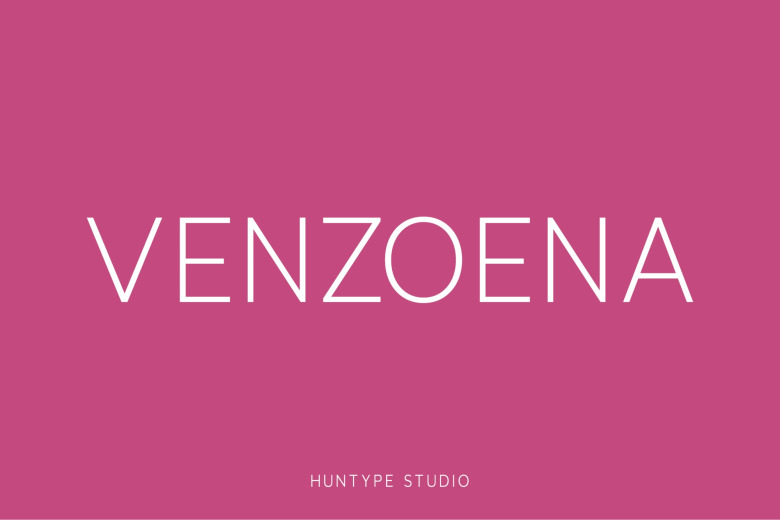
Venzoena Font
Venzoena is an all-caps sans serif font. It is flexible and pretty in anything it finds to wear. Are you looking for some beautiful and clean lines with a hint of contrast? Venzoena is perfect for logos, branding and web headings.
Venzoena Sans Serif Font